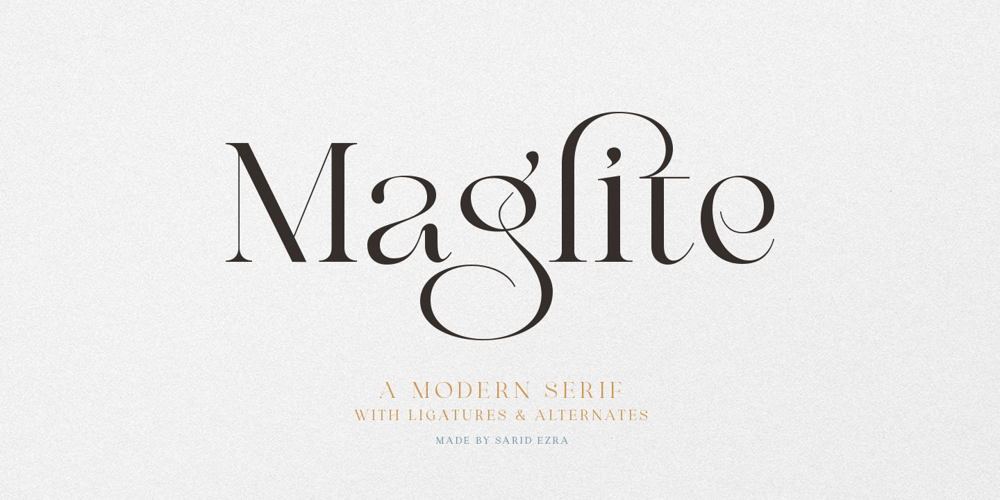
Maglite Font Family was designed by Sarid Ezra and published by Sarid Ezra. Maglite contains 1 styles and family package options. Introducing, Maglite – a stylish serif with beautiful ligatures and alternates!Maglite is an elegant and modern serif with a bunch of features that will make your presentation, project or logo even stunning and stand out! You can use this font for several purposes such as a wedding invitations or even your branding typeface! This fonts support Multi Language! Also comes with beautifully crafted ligatures and alternates that make this font more stylish and fabulous.Features Uppercase & Lowercase Number & Symbol Multi language Ligatures & Alternates